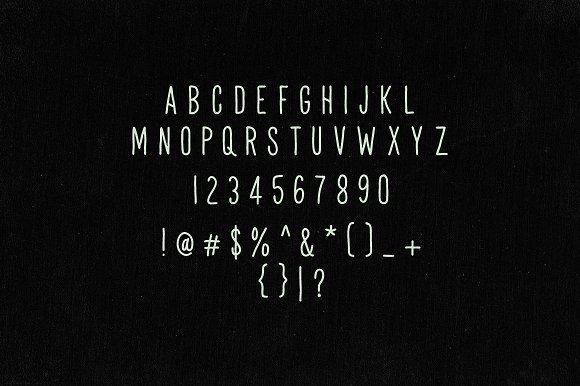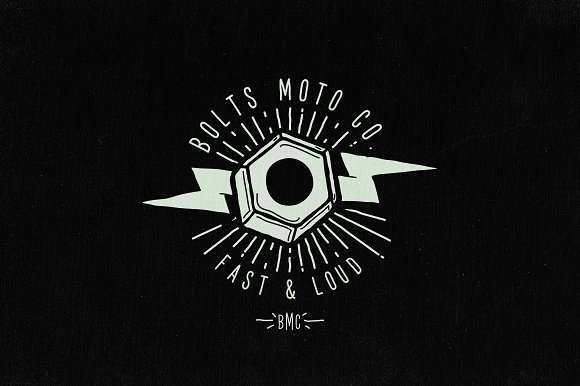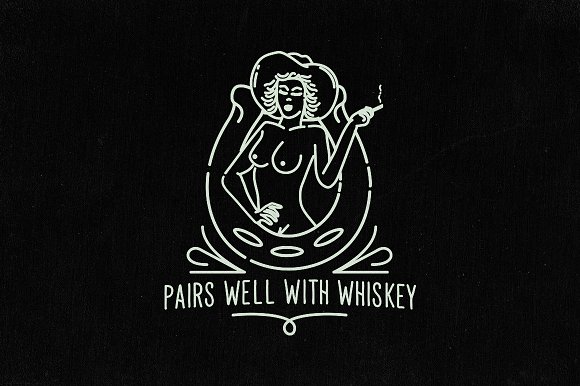
Union Hand Font
We proudly present our first and latest product ‘Union Hand’ typeface. This font pairs perfectly for your hand done illustrations, apparel, and any vintage design!